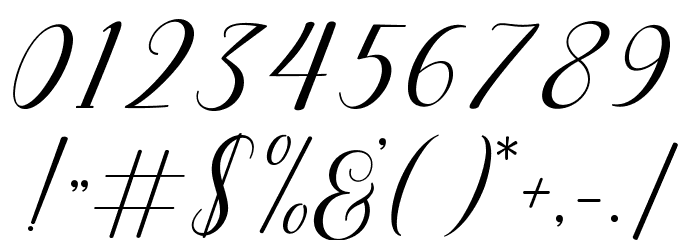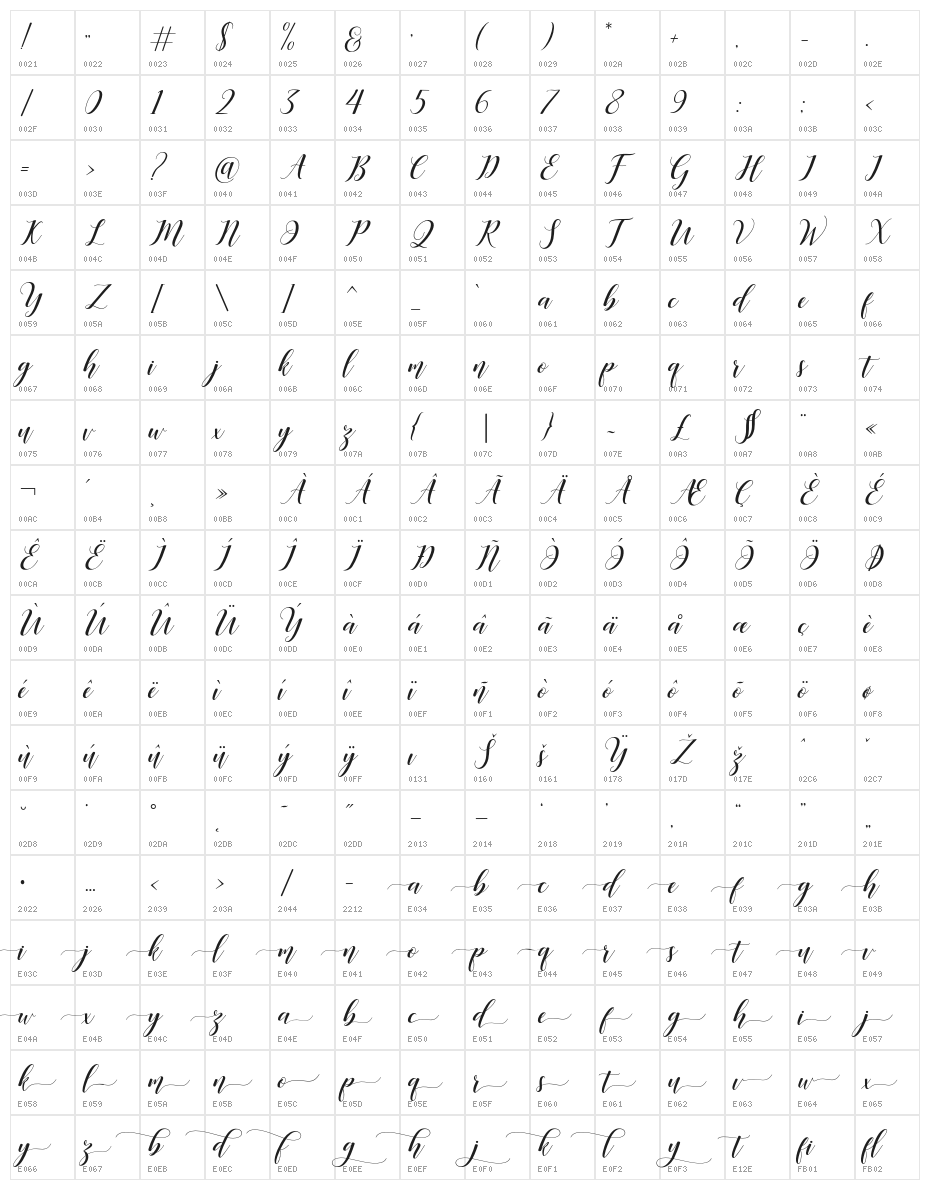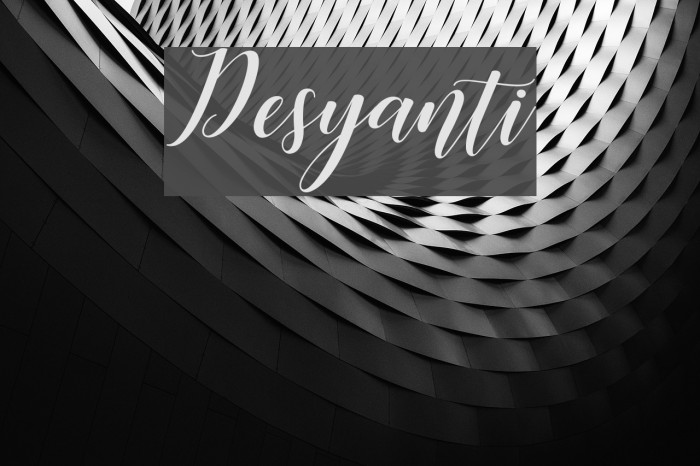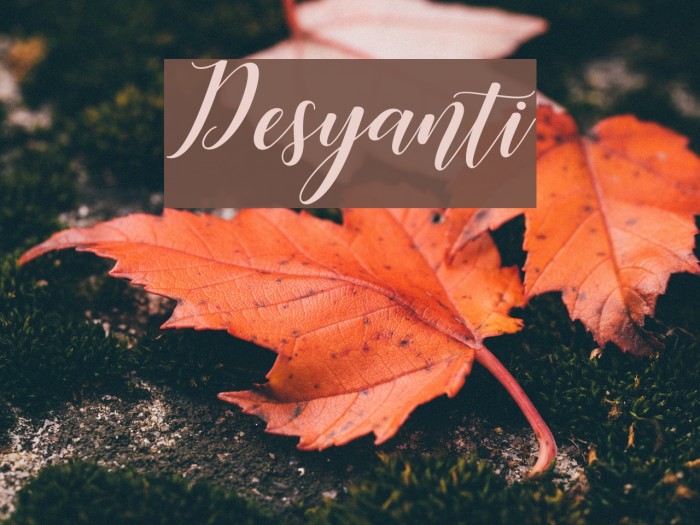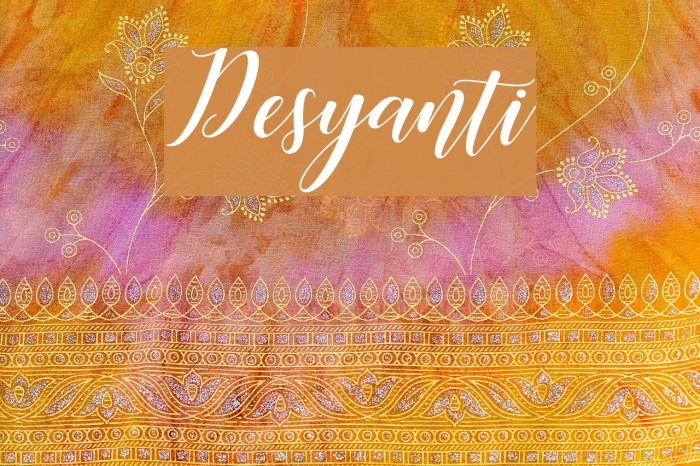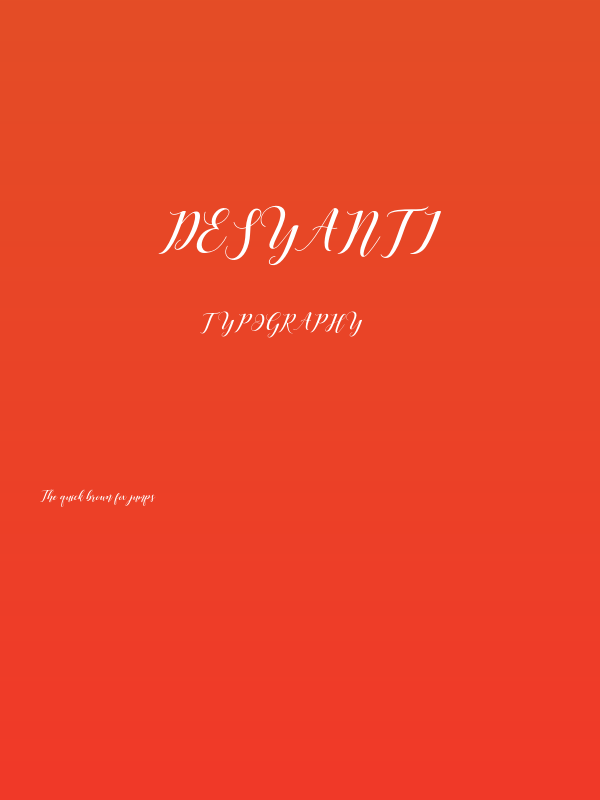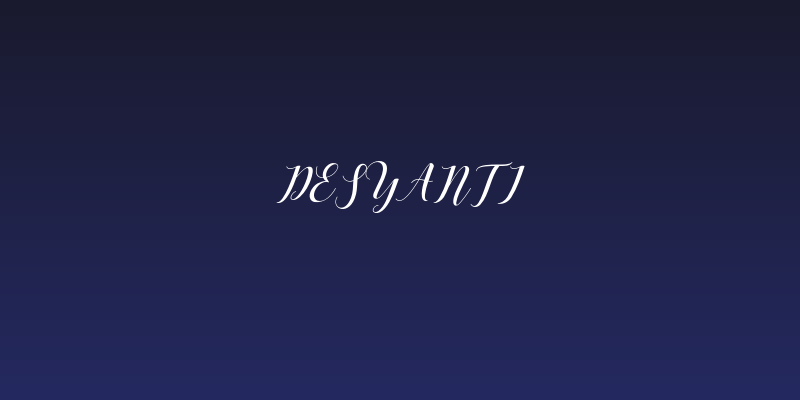
Desyanti Font
Desyanti Description
This elegant script font features flowing, cursive letterforms with a sophisticated and graceful appearance. The uppercase letters are tall and slender, with delicate loops and swashes that add a touch of refinement. The lowercase letters maintain a consistent flow, with smooth connections and a slight slant that enhances readability. The numerals are stylish and complement the overall design, while the special characters are thoughtfully crafted to match the font's aesthetic. This font exudes a sense of elegance and is perfect for projects that require a touch of class and sophistication.
| Proposed Projects | Ideal for wedding invitations, elegant branding, luxury packaging, and formal event materials. |